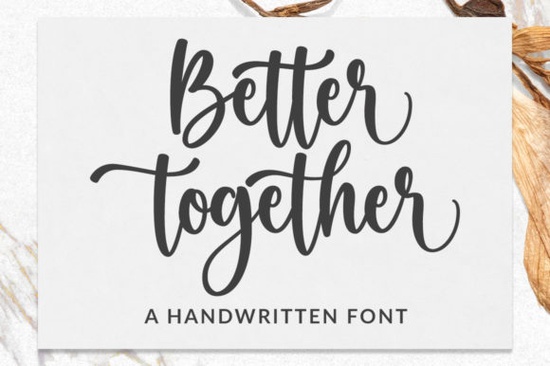
If you create logos, product labels, or heartfelt quotes that need to feel personal rather than produced, Better Together Font is a smart pick. This timeless handwritten script from Creative Fabrica carries a warmth that’s hard to fake every letterform has its own beautiful irregularity, so lines of text read like genuine pen work, not a repeated stencil. It’s a favorite for crafters, print-on-demand sellers, and small business owners who want their designs to look hand-touched right away.
What makes Better Together Font stand out?
The biggest differentiator is the character set itself. Unlike many casual scripts that rely on identical ligatures or cloned letter shapes, this font gives every letter a distinct, organic stroke. That means double letters in a word like the “t” in “better” or “l” in “hello” won’t look suspiciously identical. This natural variation is what elevates a handwritten font from “nice” to believable. The overall silhouette stays clean and readable, so you can use it on everything from small jewelry cards to large signage without losing legibility.
You also get a full set of standard glyphs, punctuation, and numerals, which makes it practical for branding projects that need more than just a pretty wordmark. It falls firmly into the script fonts category yet avoids being overly fussy, so it adapts well to modern, minimalist layouts as well as romantic, rustic ones.
Where does a handwritten font like this work best?
Think beyond the obvious greeting card. Better Together shines on products where an everyday, approachable voice matters:
- Logos and watermarks for photographers, bakers, and boutiques
- Heat transfer vinyl designs on tote bags, t‑shirts, and aprons
- Sublimation prints for mugs, pillows, and kitchen towels
- Quote art for social media posts, framed signs, and journal covers
- Wedding stationery, place cards, and favor tags
- Product packaging with a hand-finished feel
Which fonts pair well with Better Together?
Because the font is already full of character, pairing it with something quiet helps the whole design breathe. A clean, slightly condensed sans serif like a classic geometric or a light uppercase typeface works beautifully for secondary text think taglines, dates, or product details. You can also combine it with a simple serif to create an elegant, bookish contrast for quote graphics. The trick is to let Better Together carry the emotional weight while the companion font handles the supporting information without competing for attention.
For delicate, fine‑tipped strokes, Honeymoon Handwriting offers a light, airy script that works wonderfully on wedding signage and minimalist logos. When you want a bouncy, joyful baseline with a bit of sweetness, Hello Honey gives you cheerful curves that still read clearly at small sizes. If your project leans more rustic or vintage, Vintage Handmade brings a textured, slightly rough edge that looks like authentic letterpress great for coffee shop menus and farmhouse‑style décor. On the cleaner side, Biscuit serves a modern brush script that’s tidy but not sterile, making it a solid choice for labels and short headlines. Finally, if you need a bolder, upright brush feel, Daddy packs a confident, thick stroke that stands out on apparel and tote bags.
You might also enjoy browsing a playful yet structured alternative like Magnolia Sky, which blends a similar organic rhythm with a slightly more polished touch.
What about long-form text or very small prints?
Better Together is designed as a display script, so it feels best at headline sizes usually 24 points and above. For blocks of body text, you’ll want to choose something simpler for readability. If you need a very small print, test‑cut a sample first because extremely intricate handwritten strokes can be trickier to weed at tiny scale. A quick test on scrap vinyl will tell you whether you need to adjust the size or bolden the stroke slightly in your design software.
How to get the most natural look
One of the easiest ways to make a handwritten font look even more authentic is to play with letter spacing and baseline shift. In Cricut Design Space, ungroup the text to letters, then slightly nudge individual characters up or down and adjust spacing between pairs that look too tight. Since Better Together already includes unique letterforms, this extra manual tweak can push the final result closer to real handwriting. For vinyl projects, that step adds a few minutes but the payoff is huge especially when someone asks if you hand‑lettered it yourself.
Ready to give it a try?
Here’s a quick checklist to move from idea to finished project:
- Download Better Together Font from Creative Fabrica and install it on your computer.